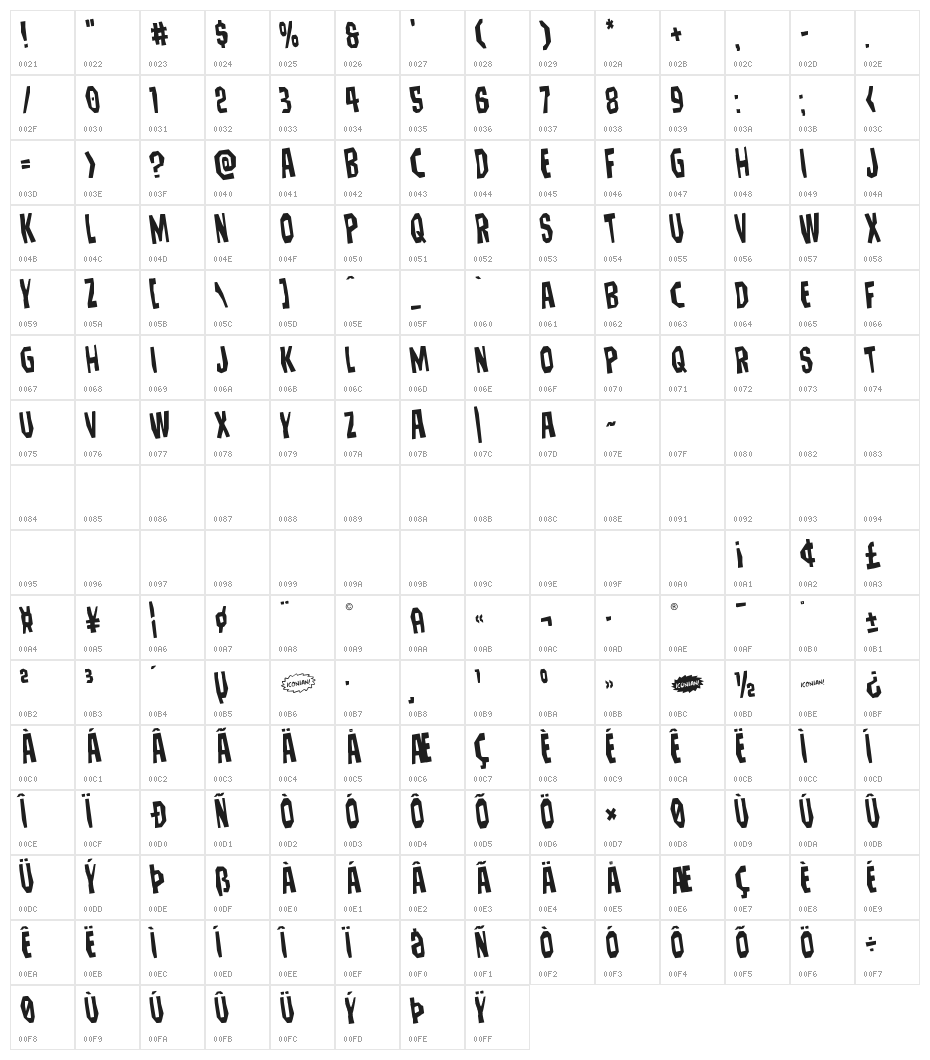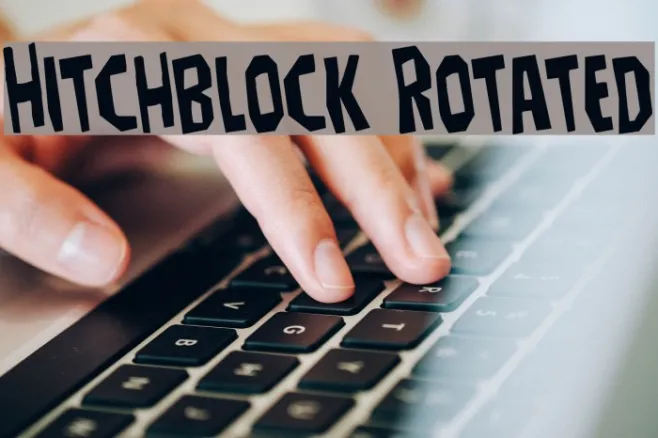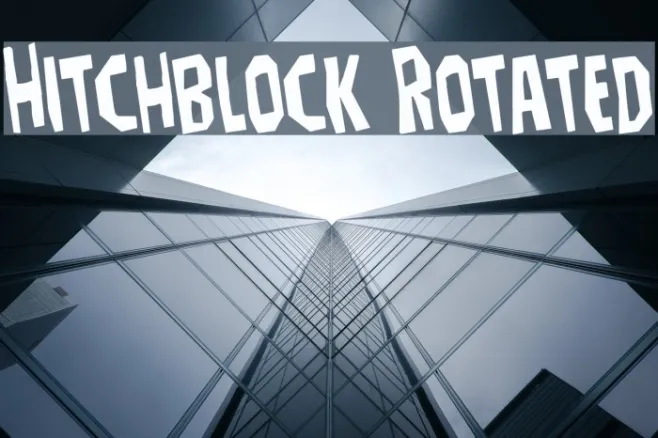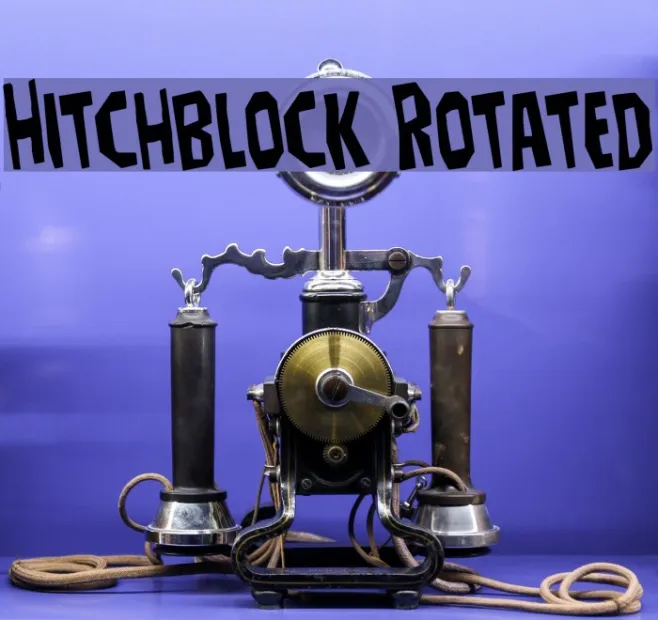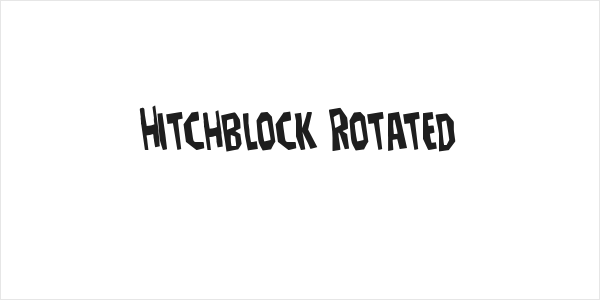
Hitchblock Rotated Font
Hitchblock Rotated Description
This font features a bold and dynamic style with a distinct angular design. The characters are slightly tilted, giving a sense of movement and energy. Each letter is crafted with sharp edges and a blocky appearance, making it highly visible and impactful. The font maintains a consistent thickness throughout, providing a uniform look. Its unique style is both modern and edgy, suitable for projects that require a strong visual presence. The numbers and special characters follow the same design principles, ensuring cohesion across all elements.
| Proposed Projects | Ideal for posters, headlines, branding, and any design that needs a bold statement. |